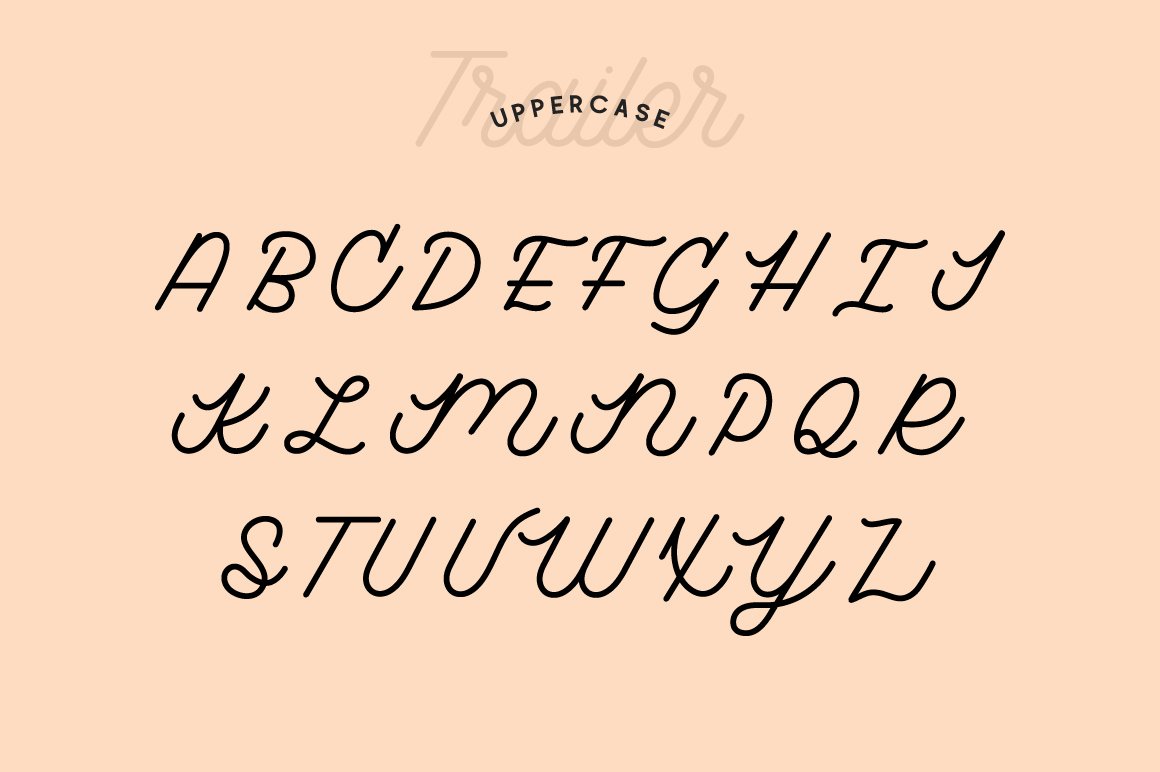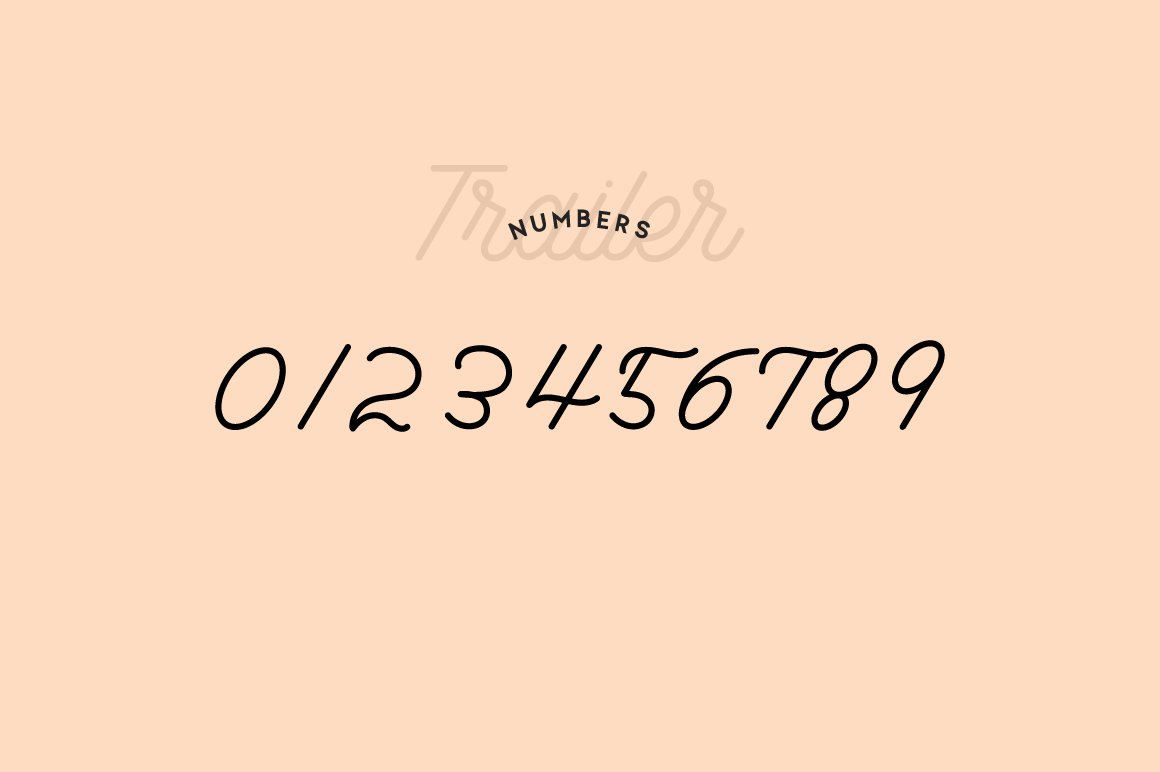
A modern monoline script font inspired by my new nomadic lifestyle! I wanted to create something that has that free-flowing script feel while still being modern and one solid width.